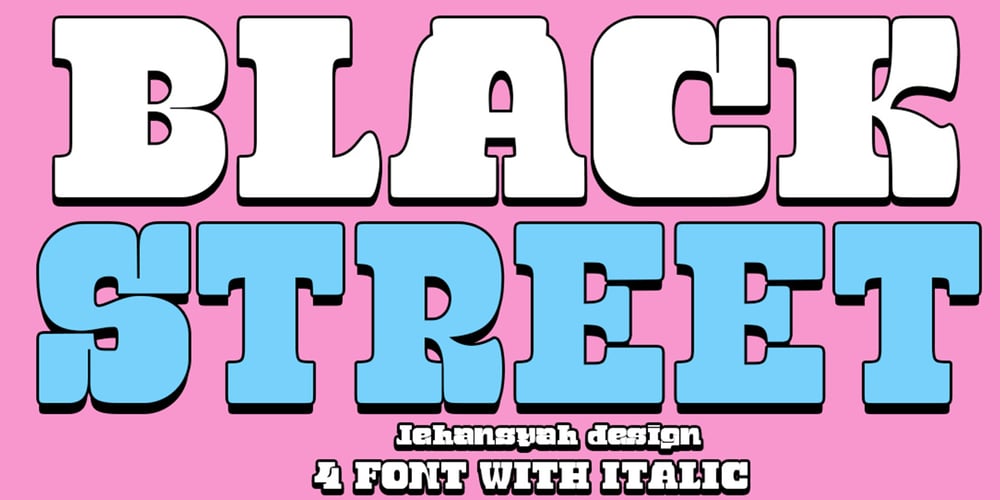
Black Street
Black Street font
Black Street Font Family was designed by Ibram Syah and published by Jehansyah. Black Street contains 4 styles and family package options. Black StreetThis is a large and bold font, it is very suitable for all design work, it looks elegant and clear and dares to display a unique impression in it for magazines, clothing posters and others.